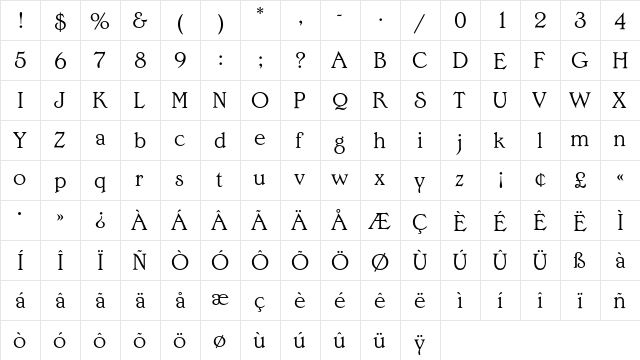
EdwardianEF Light Font Preview
EdwardianEF Light
Design Context for EdwardianEF Typeface
EdwardianEF is a composed and adaptable typeface that performs quietly and consistently across a wide range of design contexts. Its slender proportions lend an understated elegance to any composition.
Pro Tip: Pair EdwardianEF with a font of contrasting weight or personality to build a more expressive typographic hierarchy.